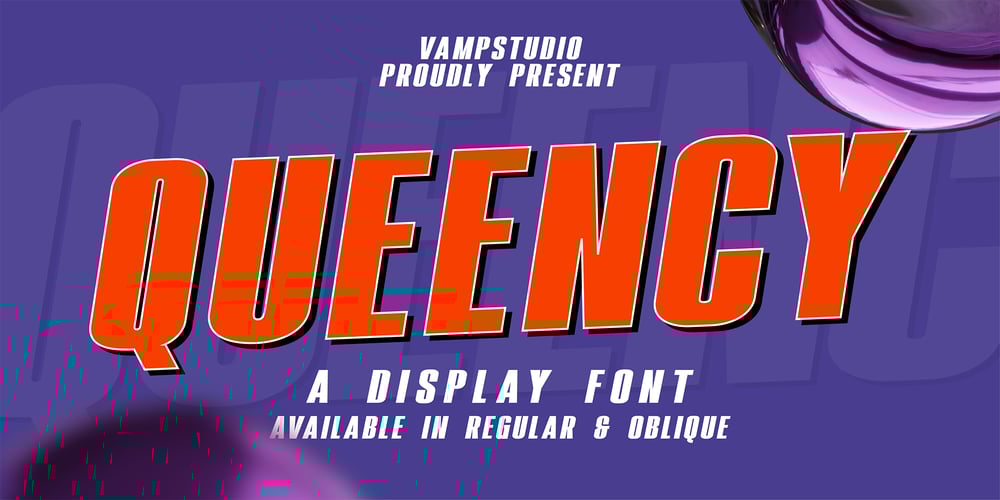
Queency Font Family was designed by Irfan syah and published by Vampstudio. Queency contains 2 styles and family package options. Queency Font: A modern and bold sans-serif display condensed font that commands attention. Inspired by contemporary design, Queency combines sleek aesthetics with condensed proportions, making it perfect for impactful headlines, branding, and graphic elements. Each letter in Queency is crafted for clarity and visual impact, bringing a bold presence to your projects. Explore the modern simplicity and condensed style of Queency Font, ideal for making a statement in a wide range of design applications.